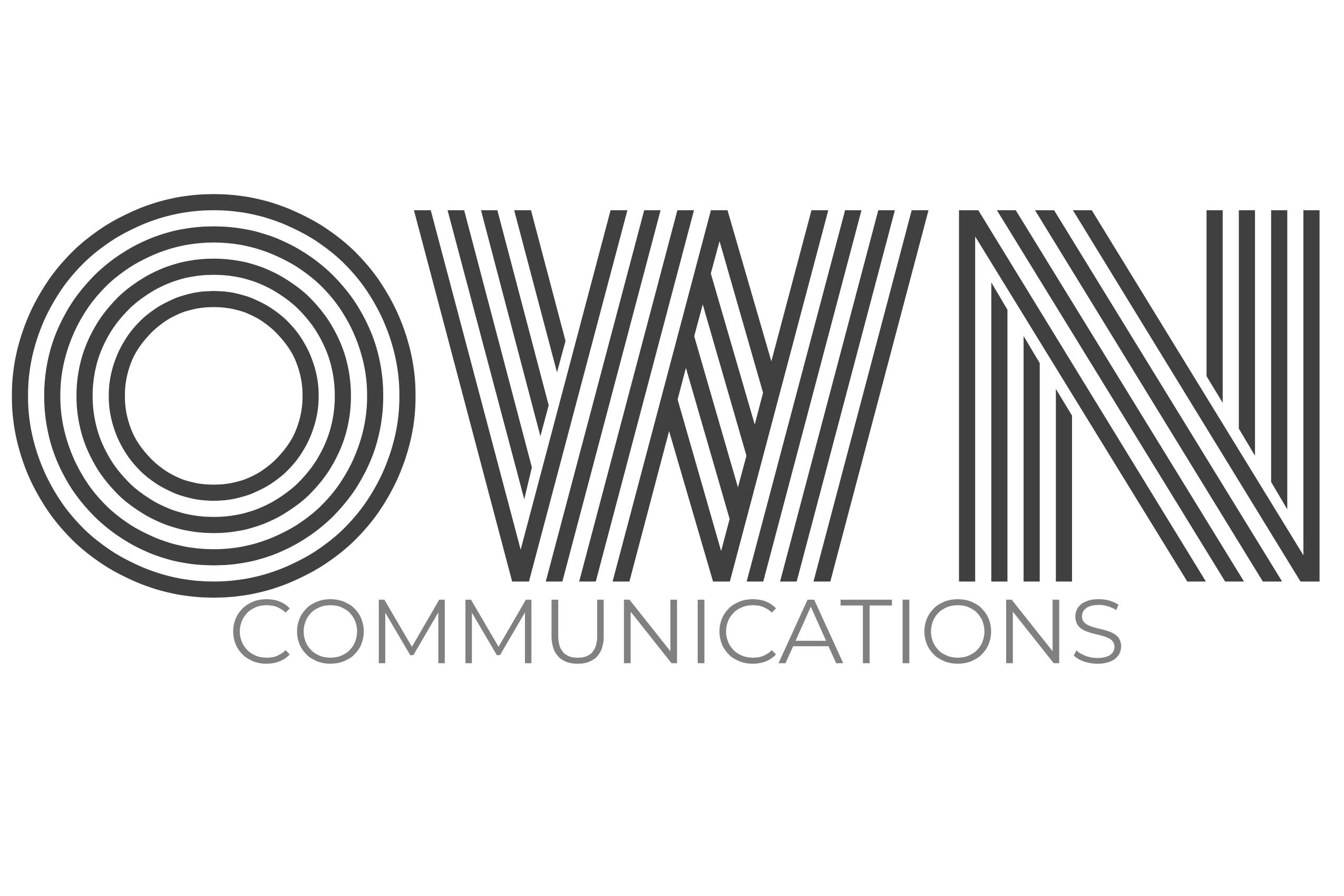
Hunting for this font
I used this font years ago and can no longer find it. Anyone recogniuse it or know how I can track it down?
I can find similar (sort of) but not the right one.
Both Adobe font search by image feature and Whatsthefont suggest Arya as a closest match.
Since the main characteristic of the font is being an "inline" one. I would also do a broad google search for something like "Sans serif inline font" or typeface
I found a few examples where you could maybe ask them directly?